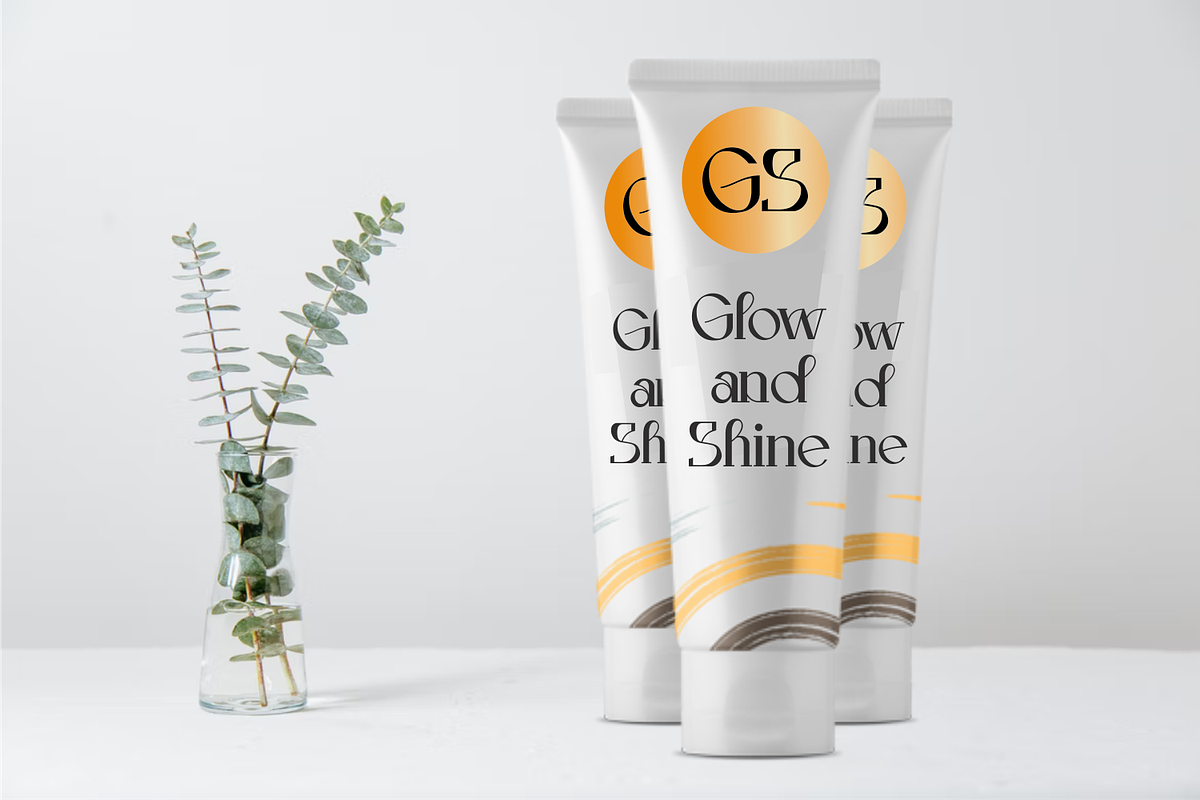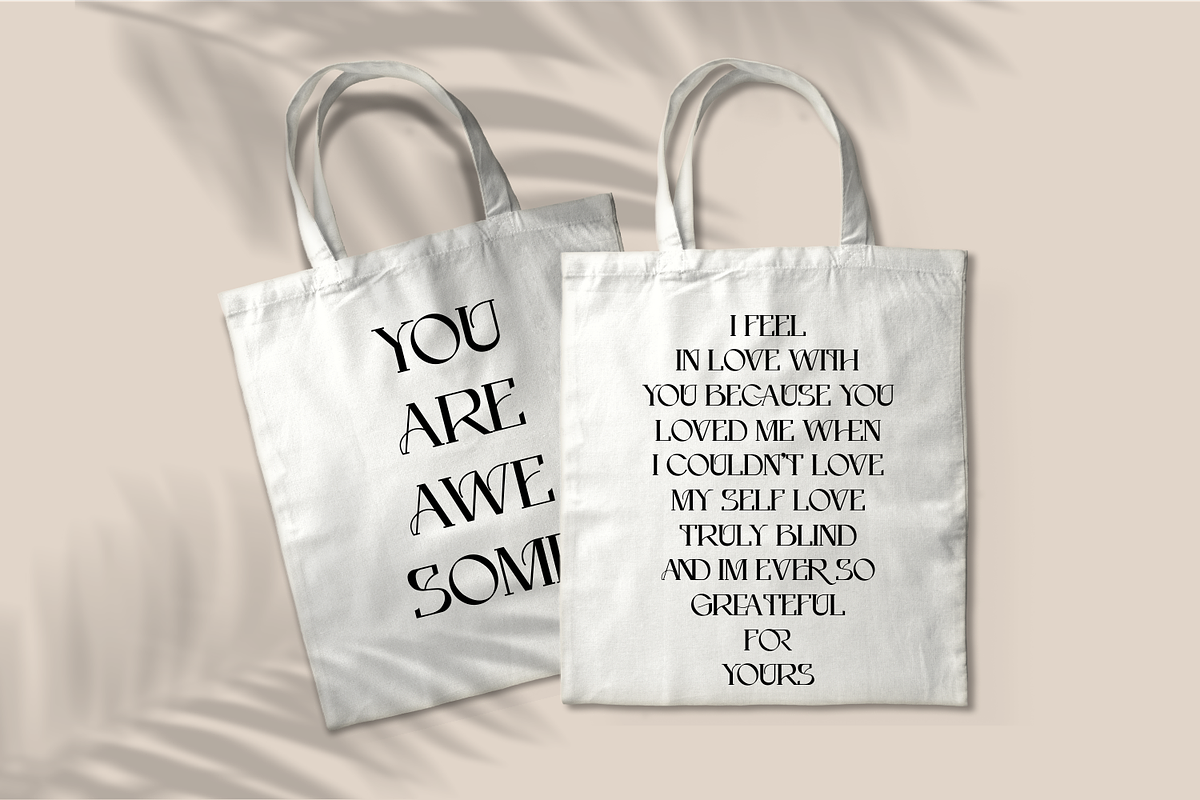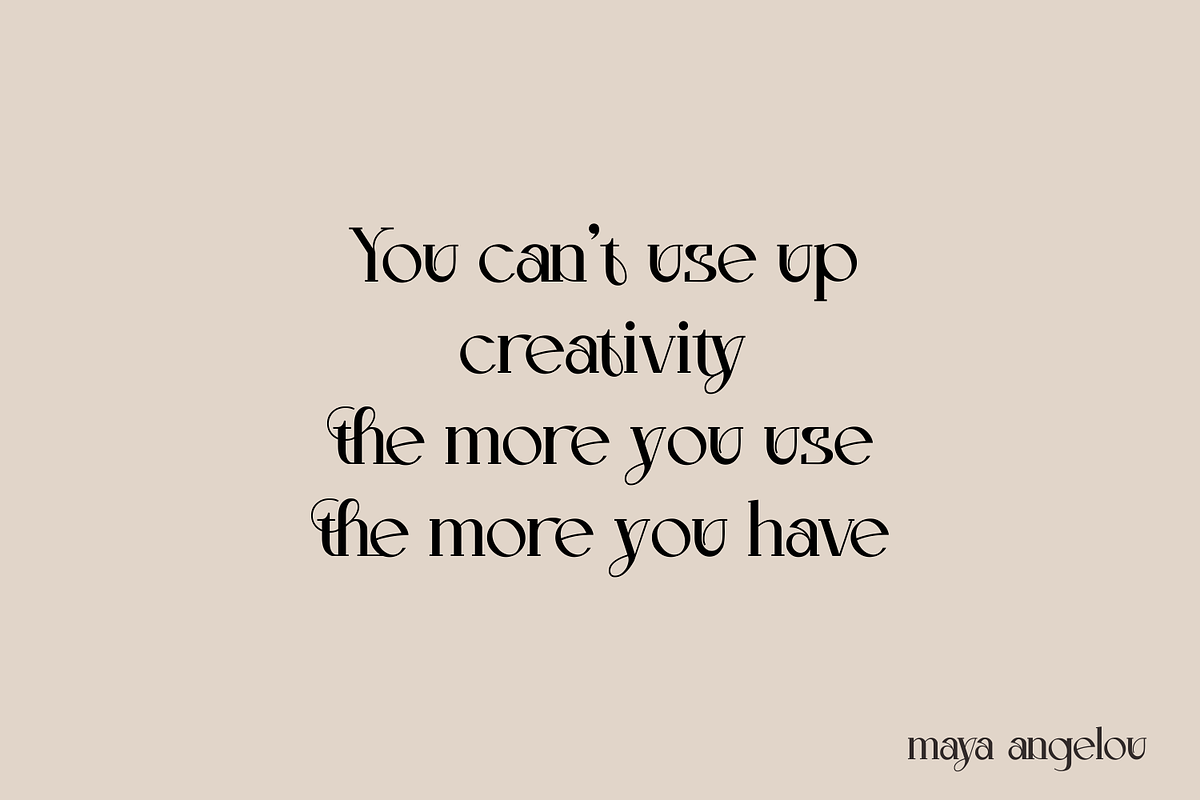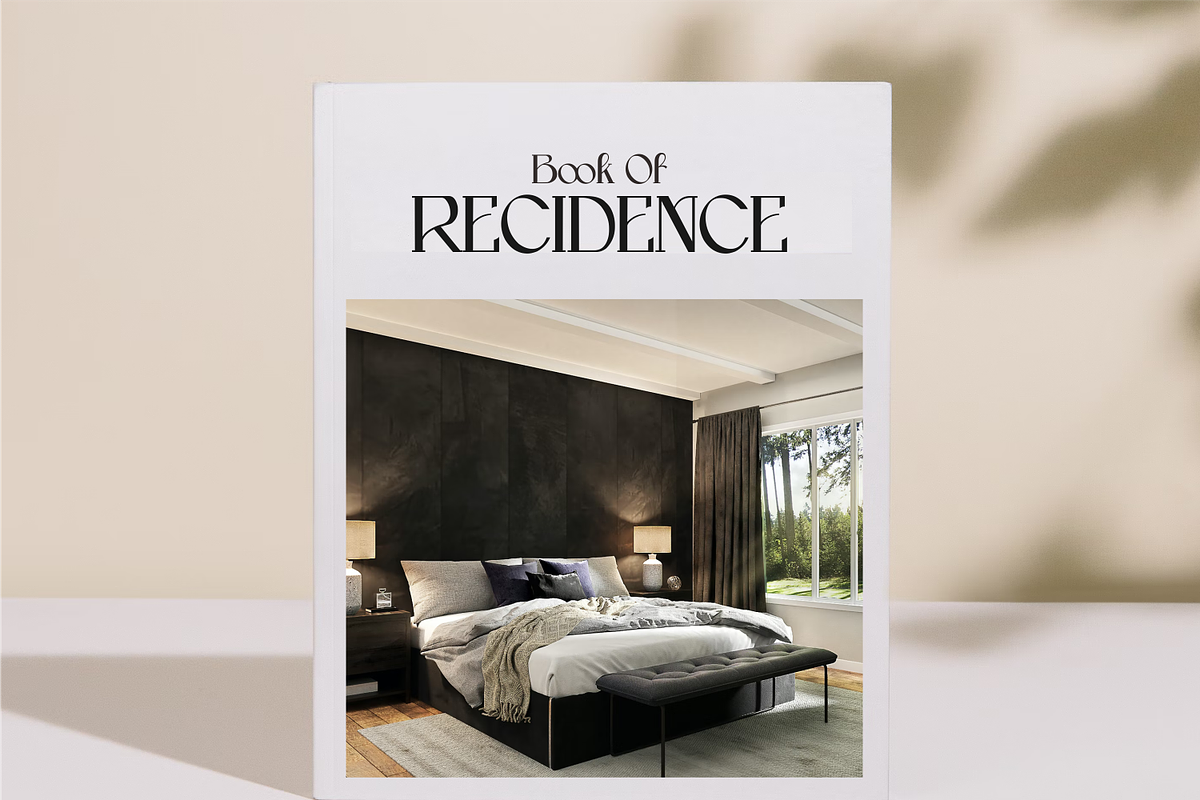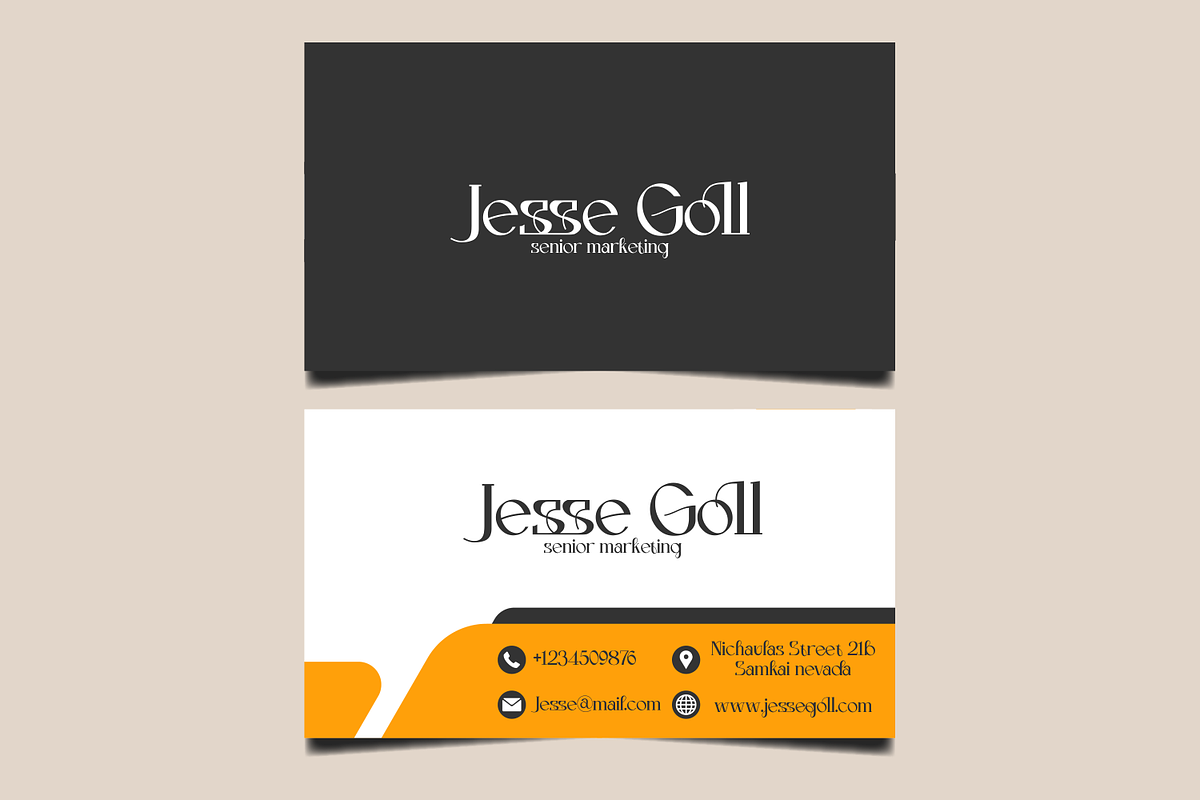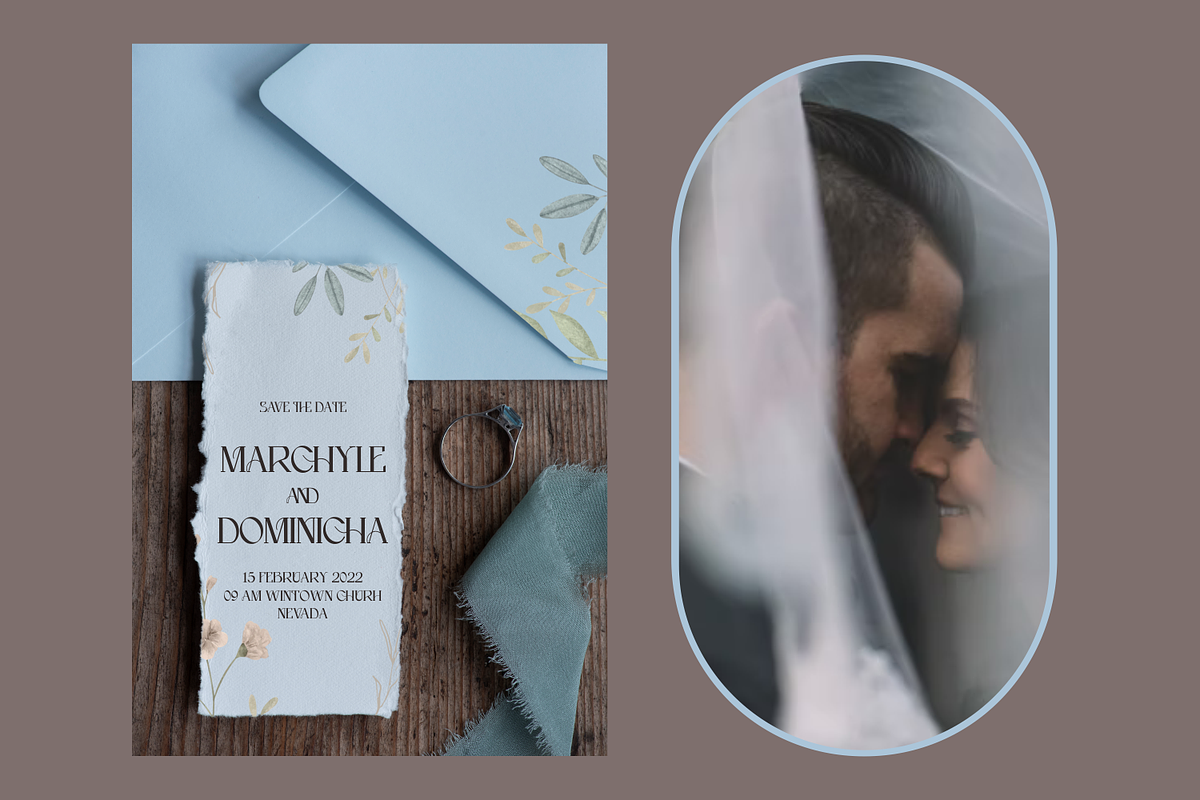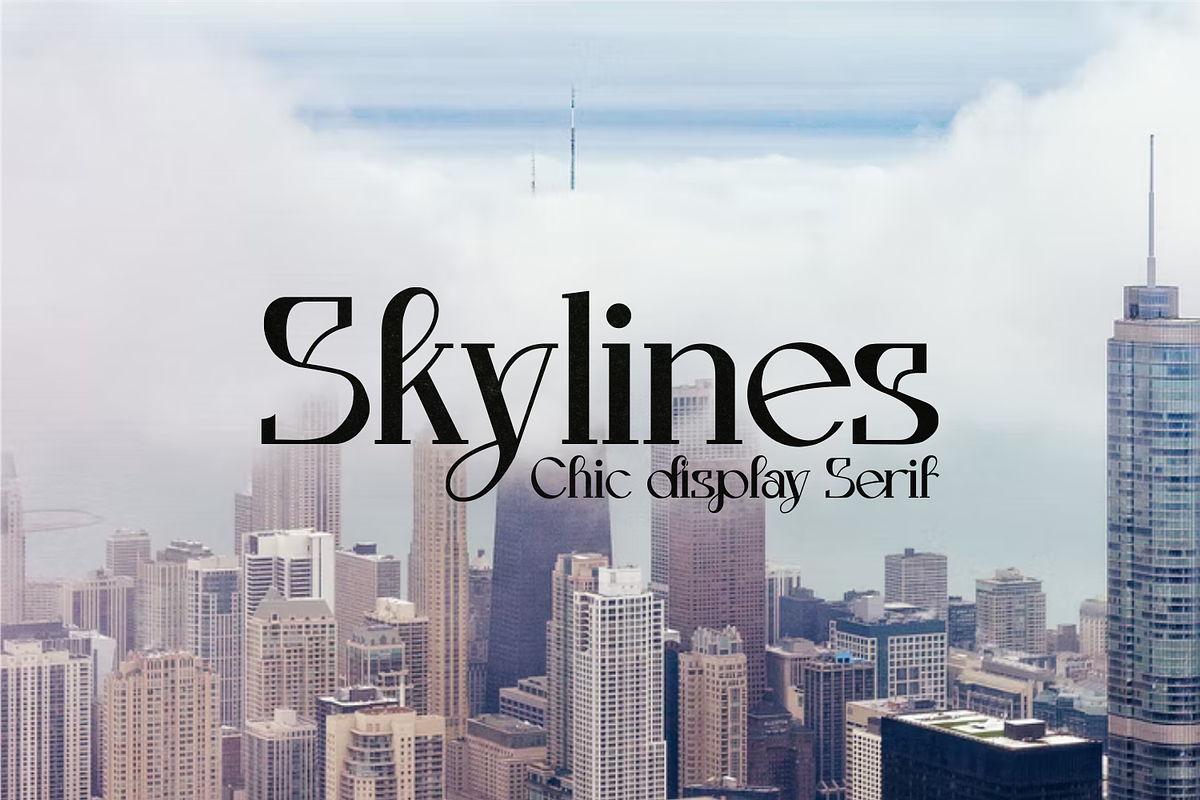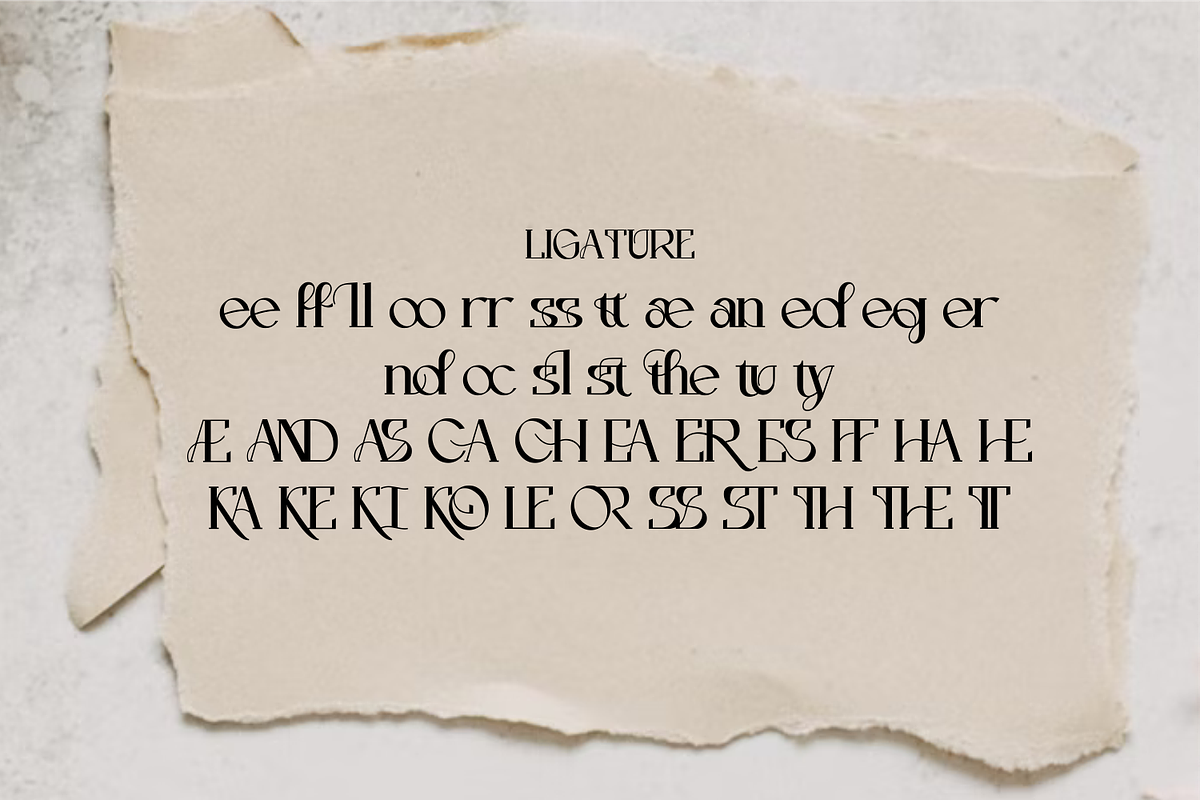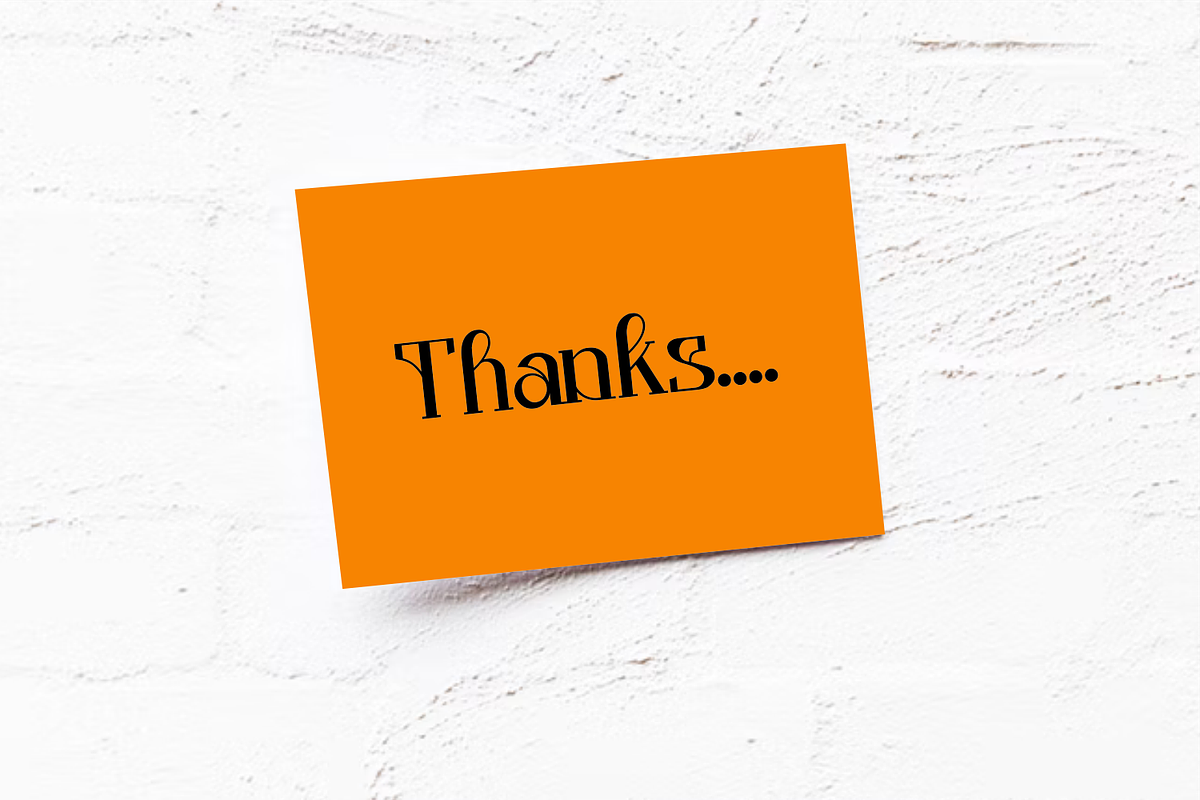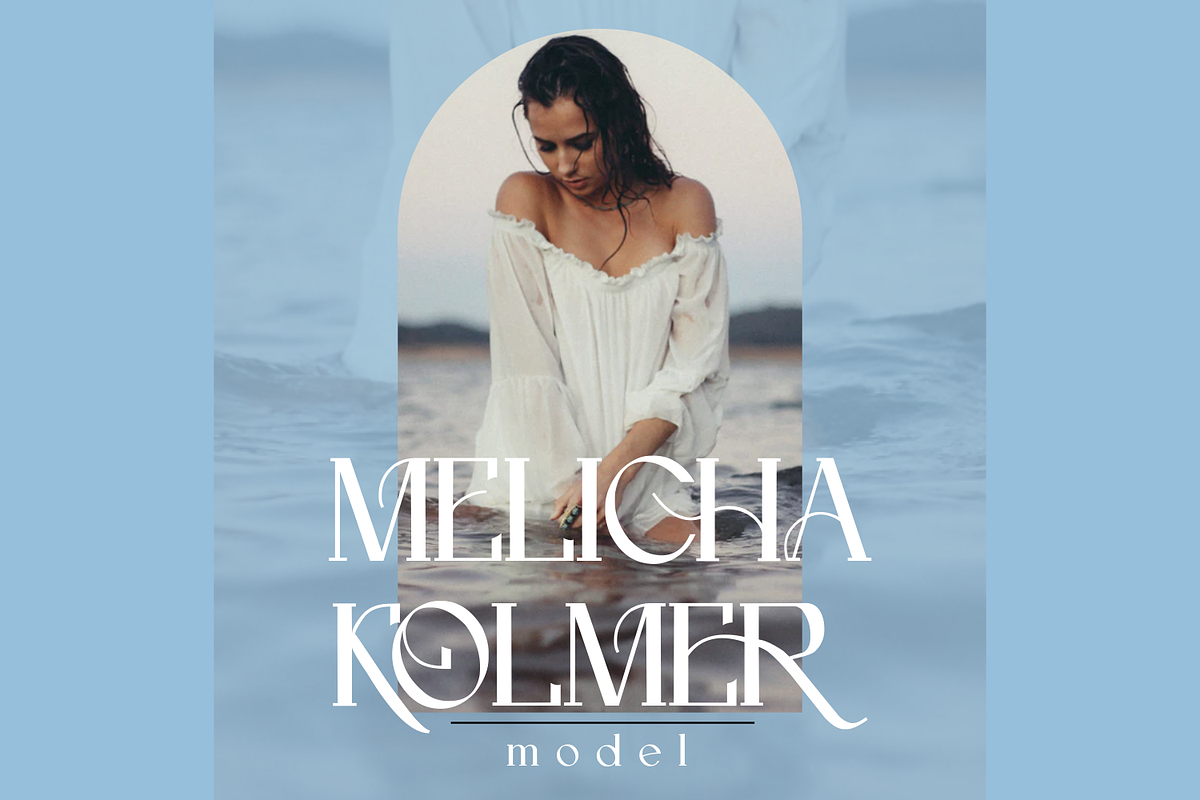
Sklines Chic Display Serif
Skylines a chic display serif with fonts that seem to bring out the characters. I created a Grotesk serif style but with added contrast and selective serifs to create a contemporary and memorable font. Sharp points combine with smooth curves creating a unique glyph that's perfect for eye-catching word signs and typographic posters. Alternate characters and ligatures are intentionally made with different styles to add a unique and character impression.